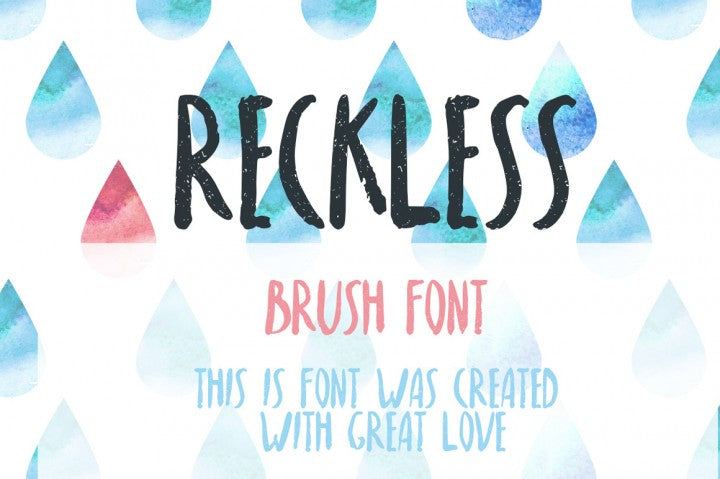
Free Font Reckless Brush
Download and enjoy this free font reckless brush. Cool typeface to showcase your designs in a modern way. Download this free font from the original source of The Hungry JPEG. This is absolutely beautiful font so you can easily make world-class designs.